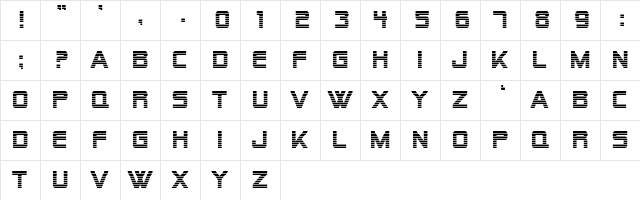
SF Alien Encounters Regular Font Preview
SF Alien Encounters Regular
SF Alien Encounters Regular Font Details
Design Context for SF Alien Encounters Typeface
SF Alien Encounters is a composed and adaptable typeface that performs quietly and consistently across a wide range of design contexts.
Pro Tip: Use SF Alien Encounters in both headline and body roles to test its range before committing to a single application.